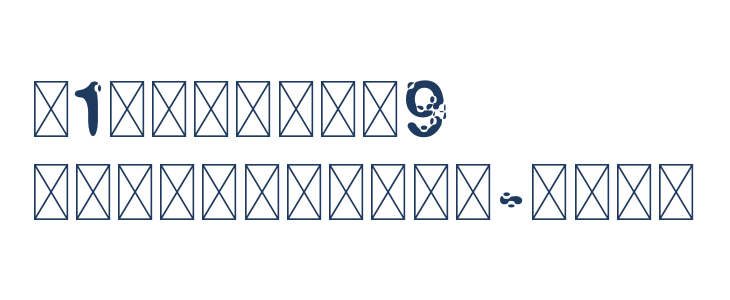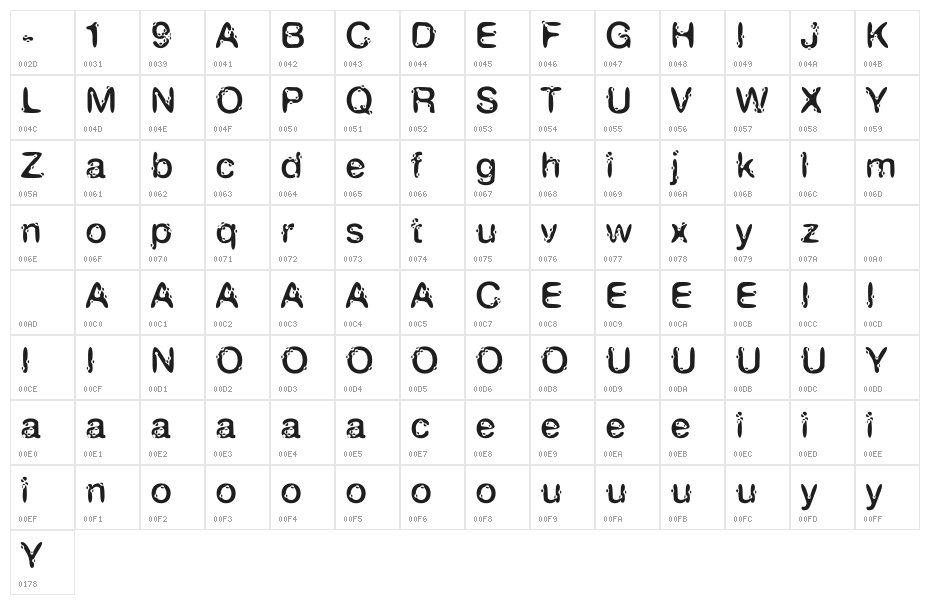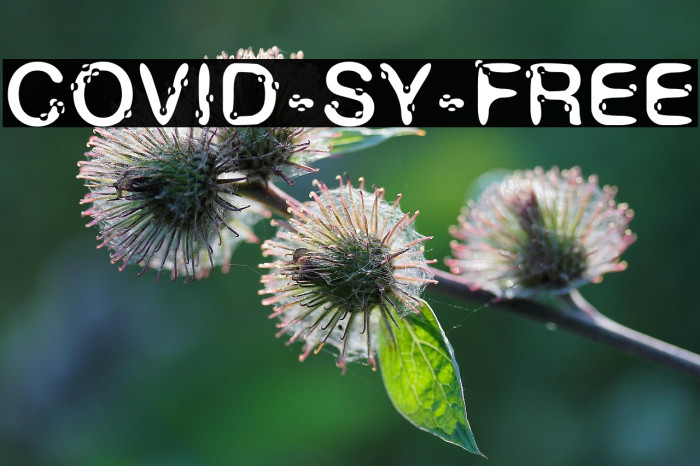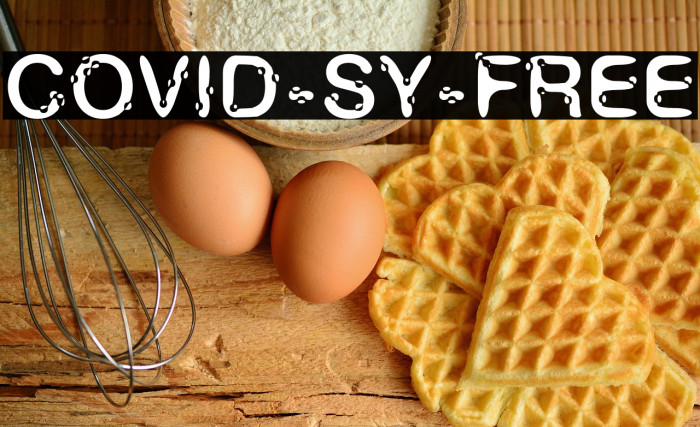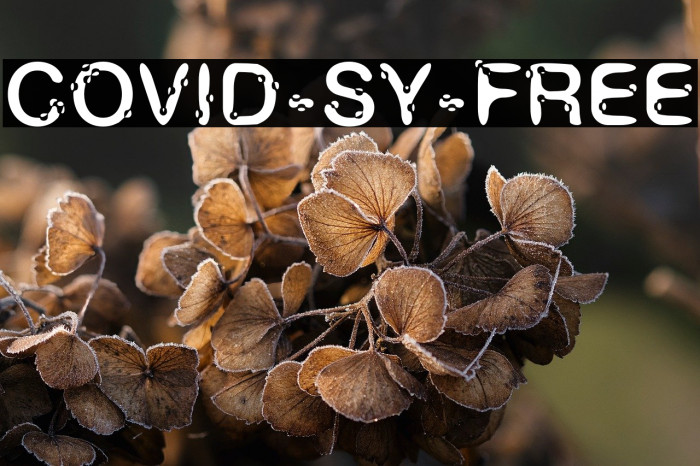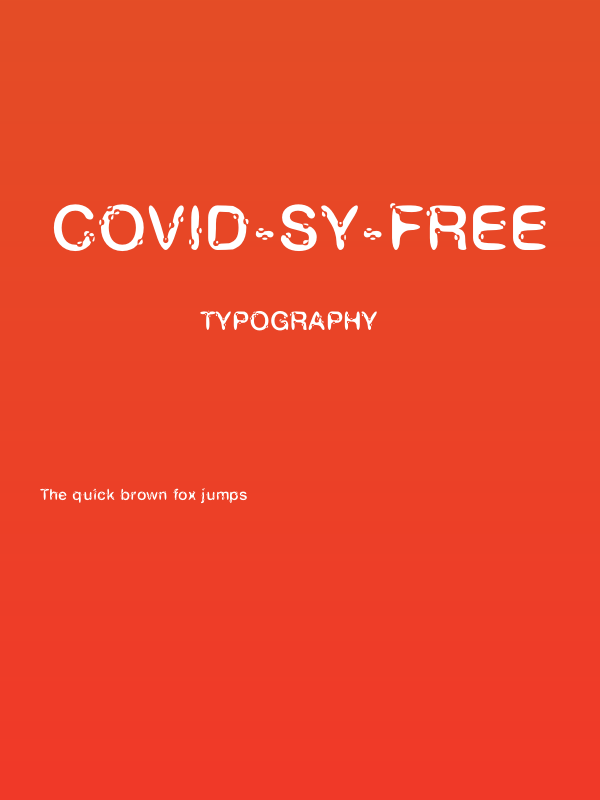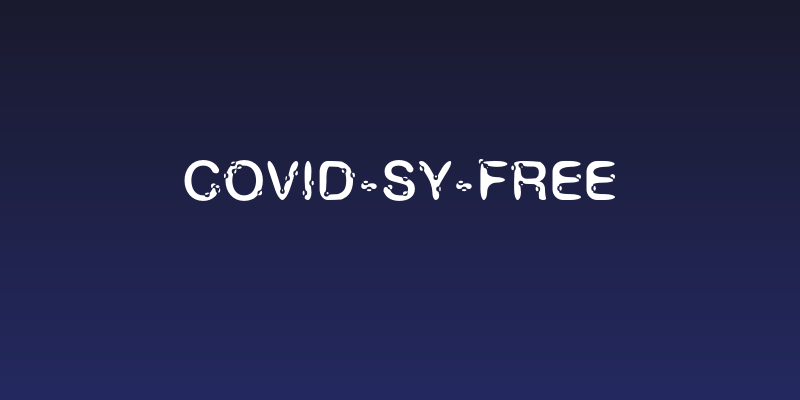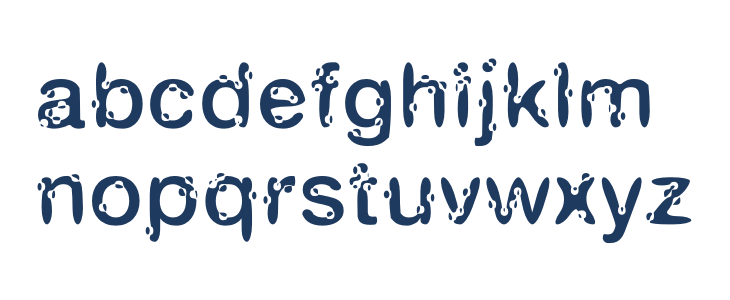
COVID-SY-FREE Font
COVID-SY-FREE Description
This font features a unique and playful design with irregular, organic shapes that resemble splatters or bubbles. The characters have a bold presence with rounded edges and varying thickness, creating a dynamic and eye-catching appearance. The uppercase and lowercase letters maintain a consistent style, while the numbers and special characters follow the same playful theme. This font's distinctive look makes it suitable for creative and informal projects, adding a touch of whimsy and fun to any design.
| Proposed Projects | Ideal for children's books, party invitations, playful branding, and creative posters. |